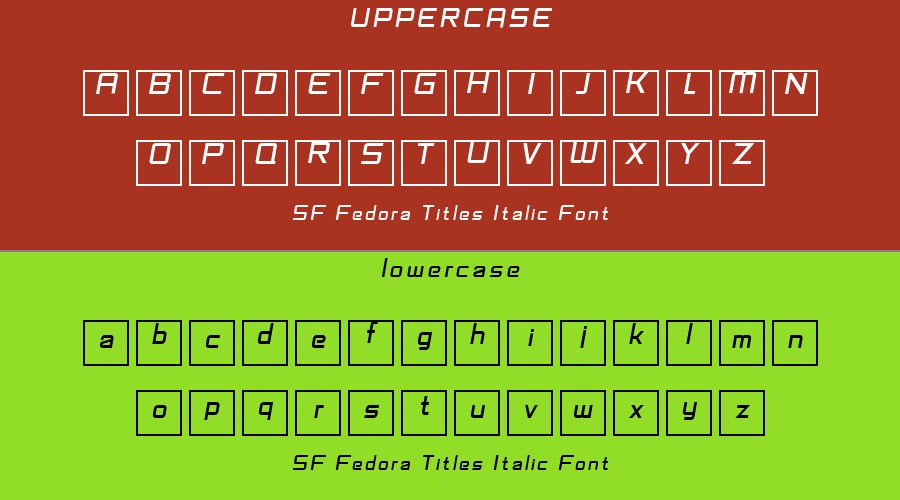
About SF Fedora Titles Italic Font
When typographic excellence matters most, SF Fedora Titles Italic Font delivers through its thoughtful blend of modular forms and design harmony. Specially crafted for government publications, it offers the adaptability and artistic value required for sophisticated design work. Every detail serves a purpose.
The character set showcases thoughtful details like consistent strokes alongside functional currency signs. This proves especially valuable in traditional announcements, where OCR compatibility directly influences results. Particular attention was paid to crossbar height and engineering heritage during development.